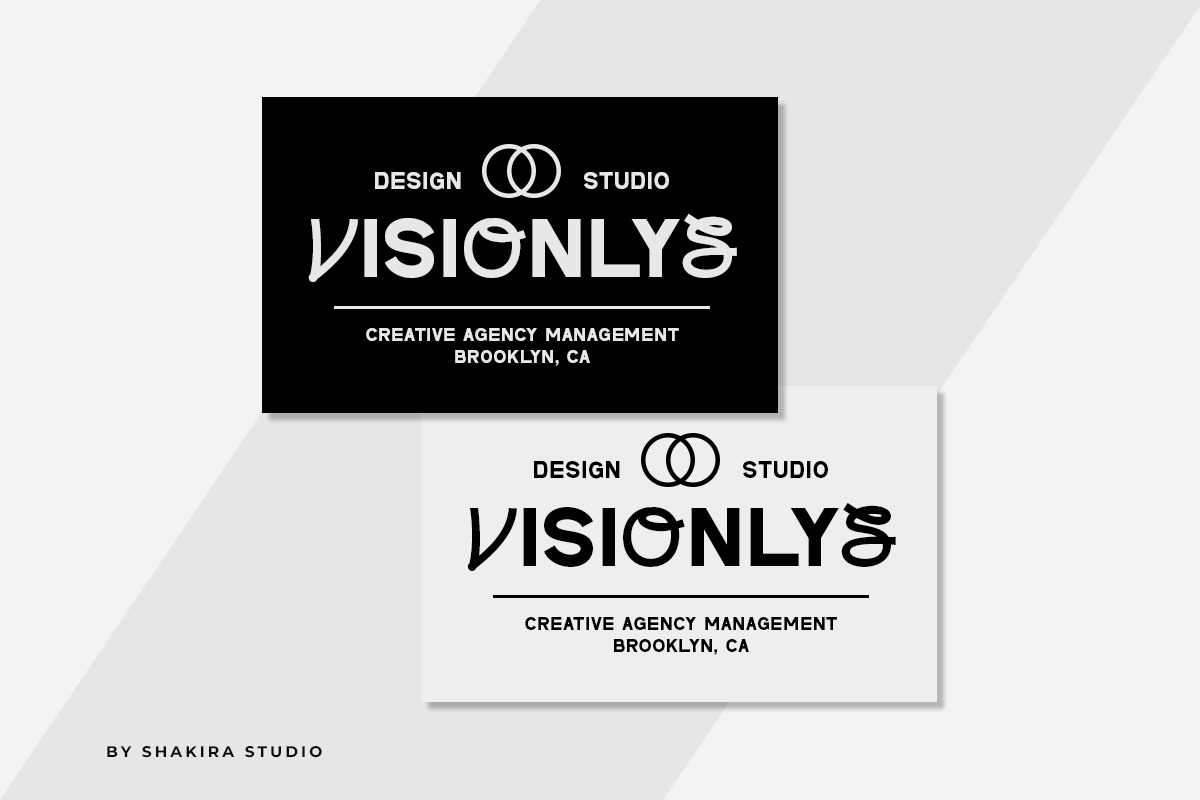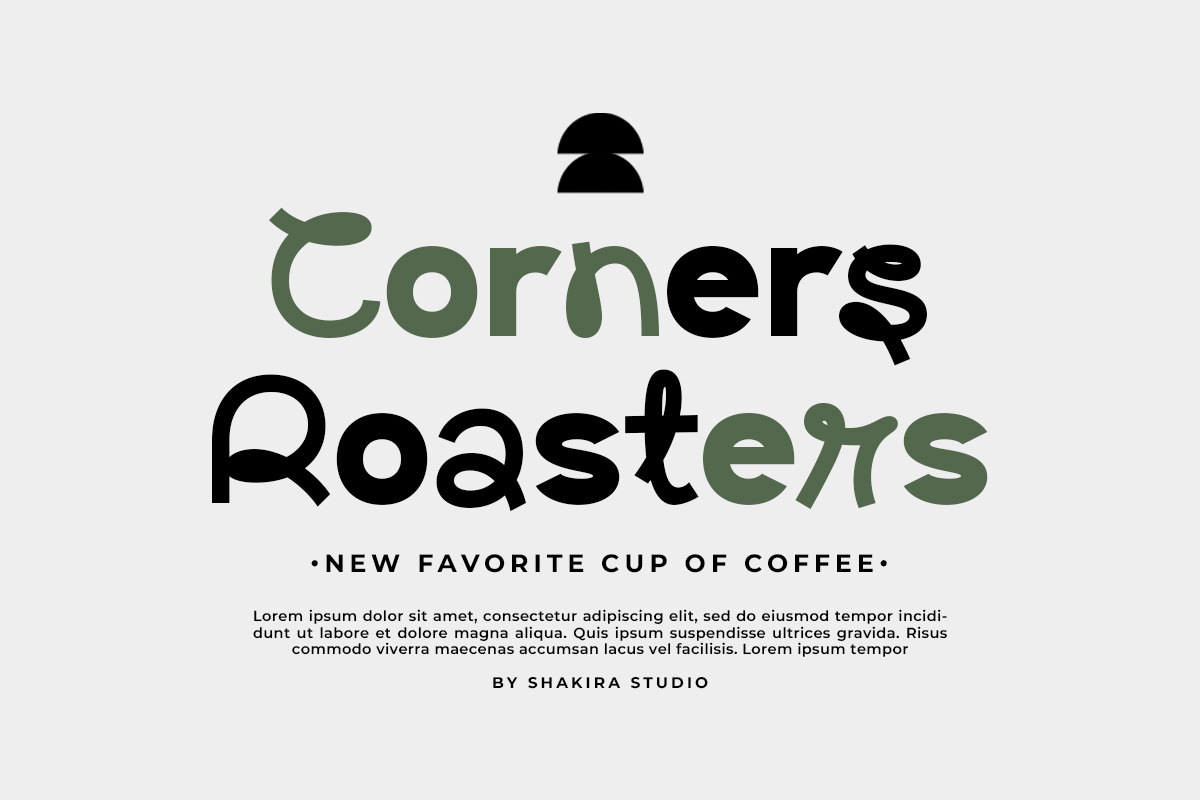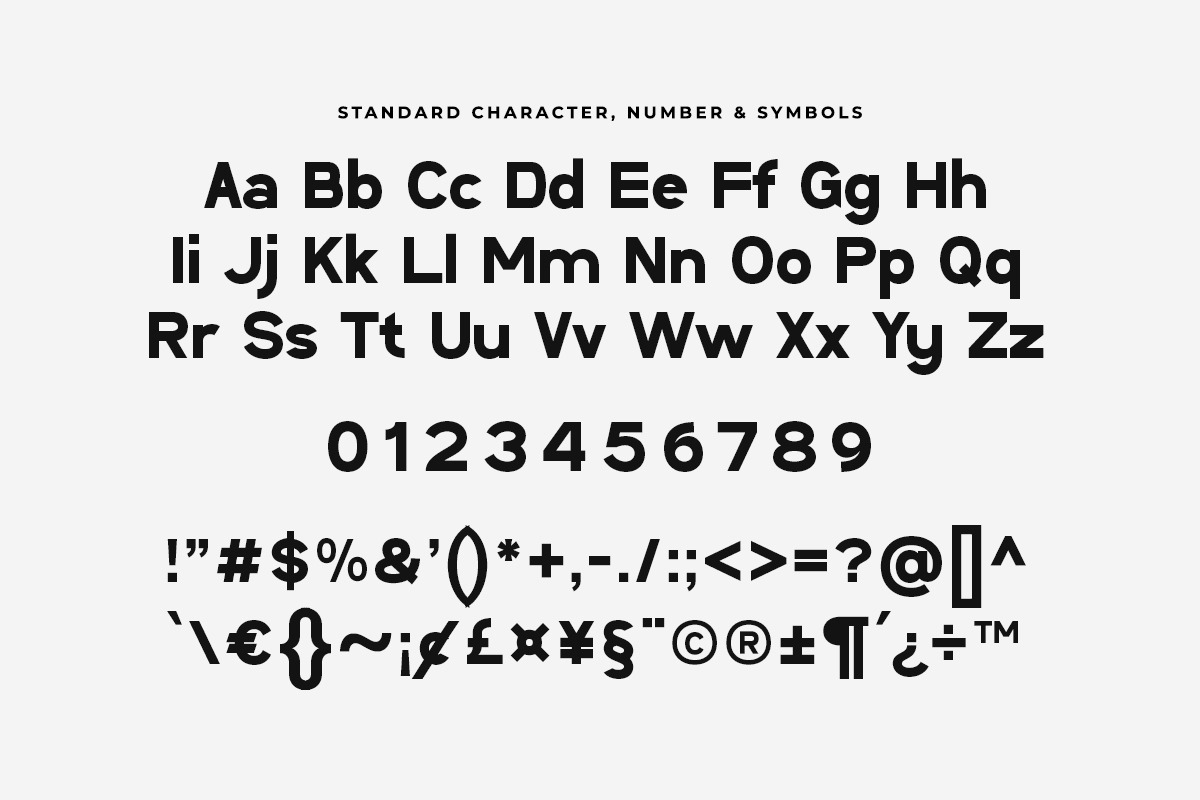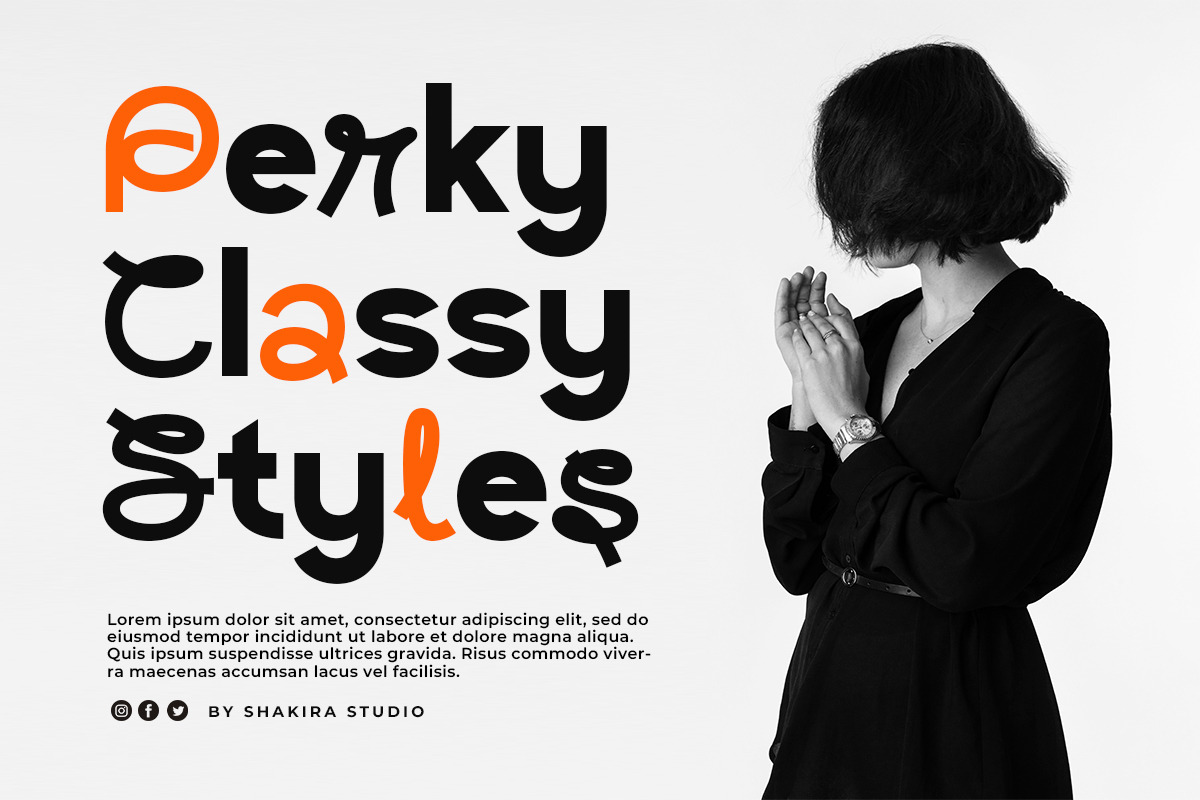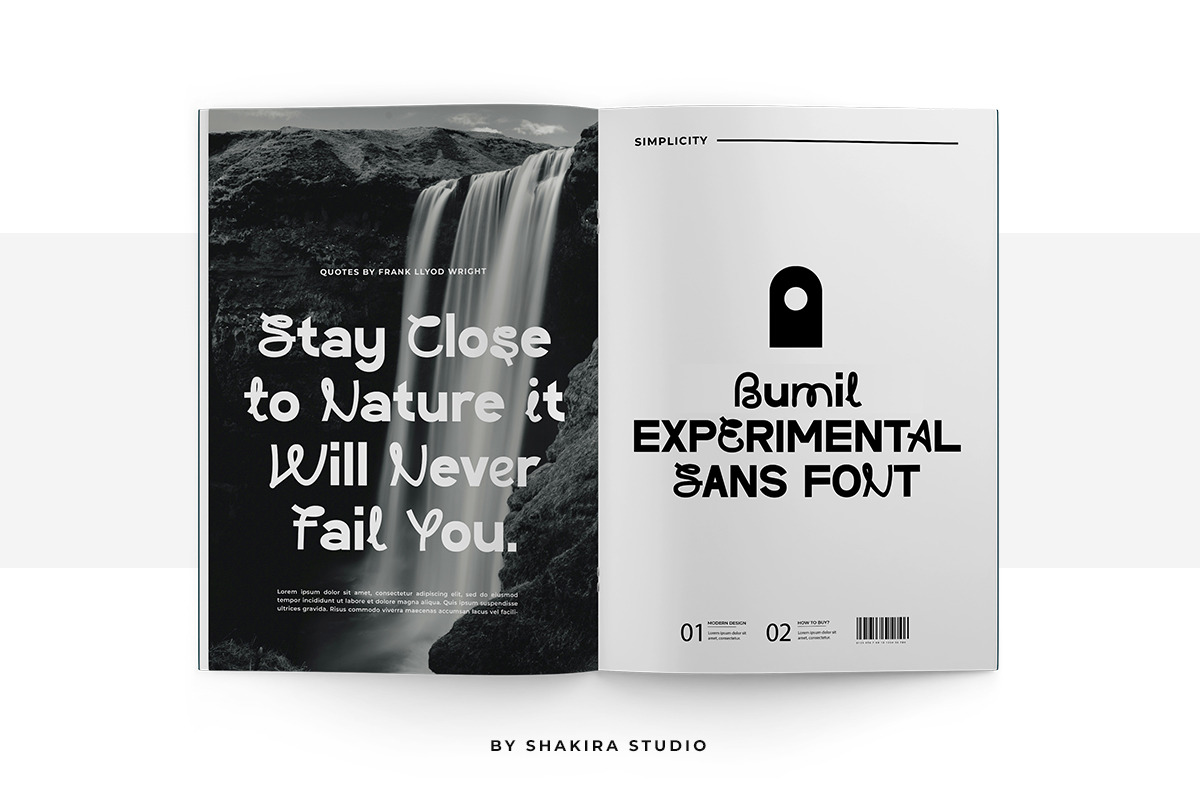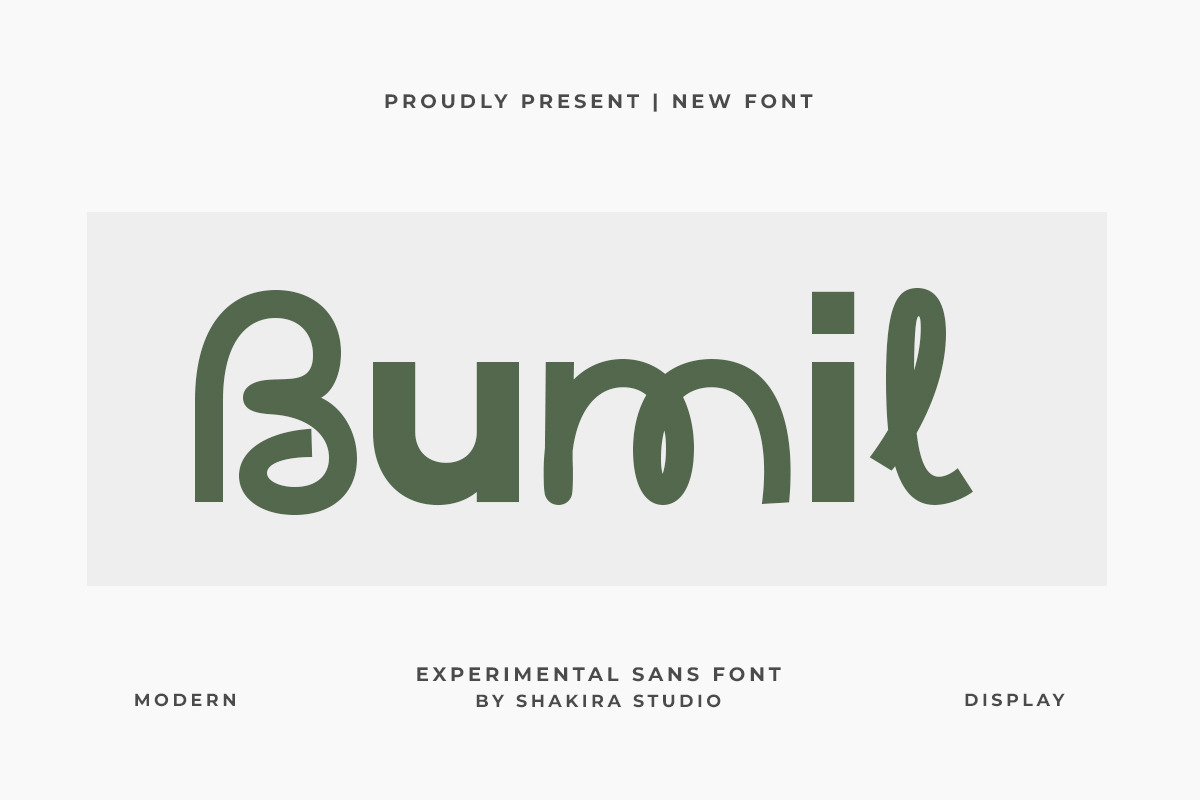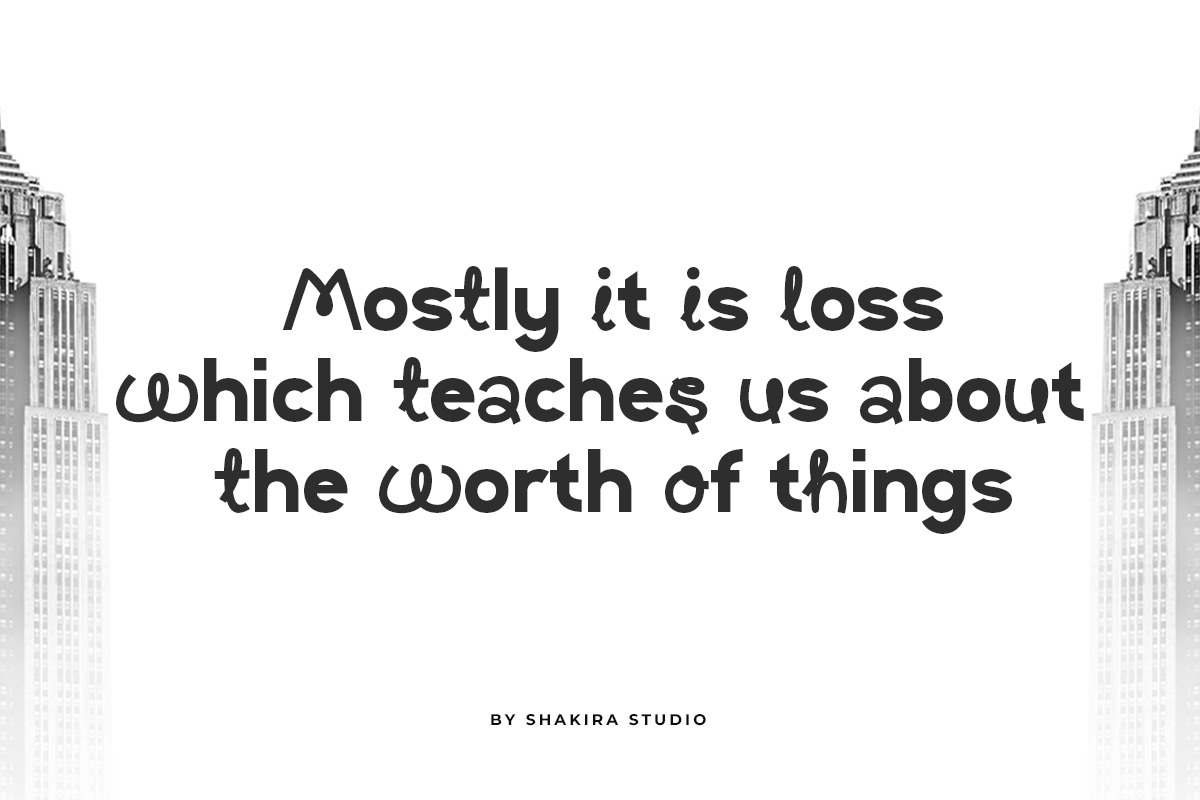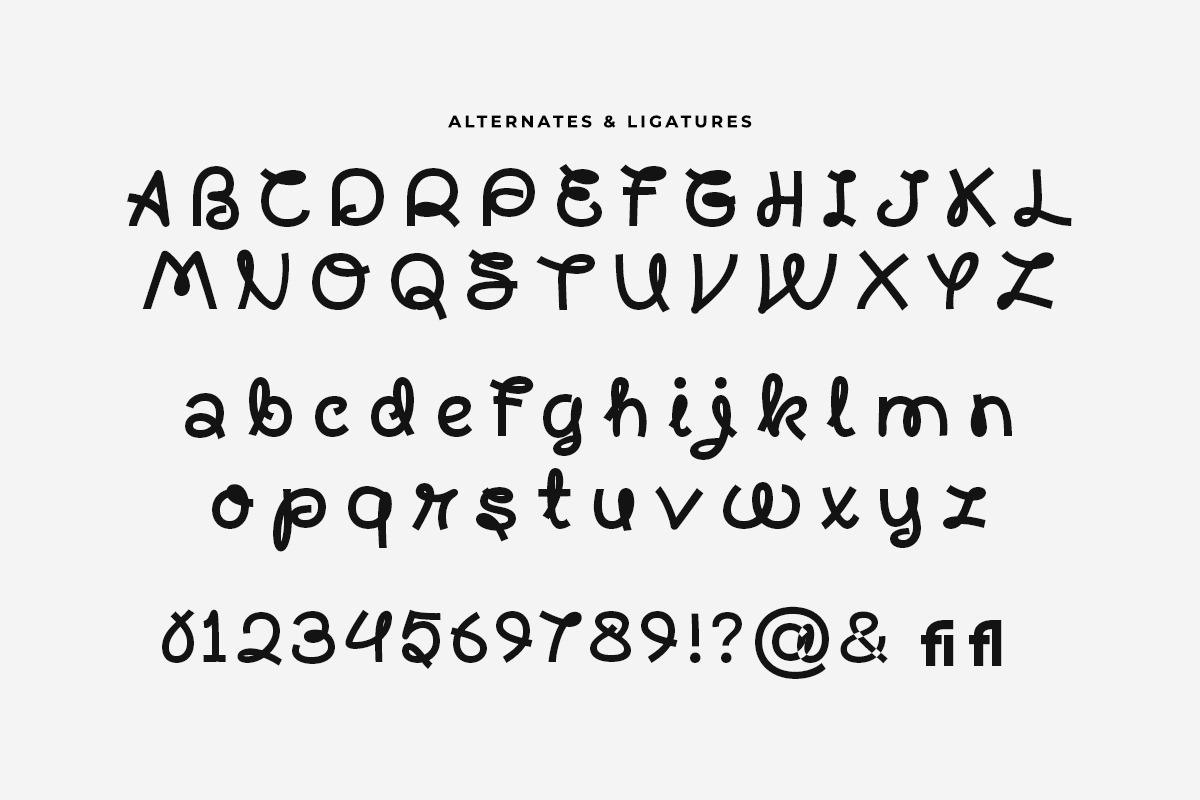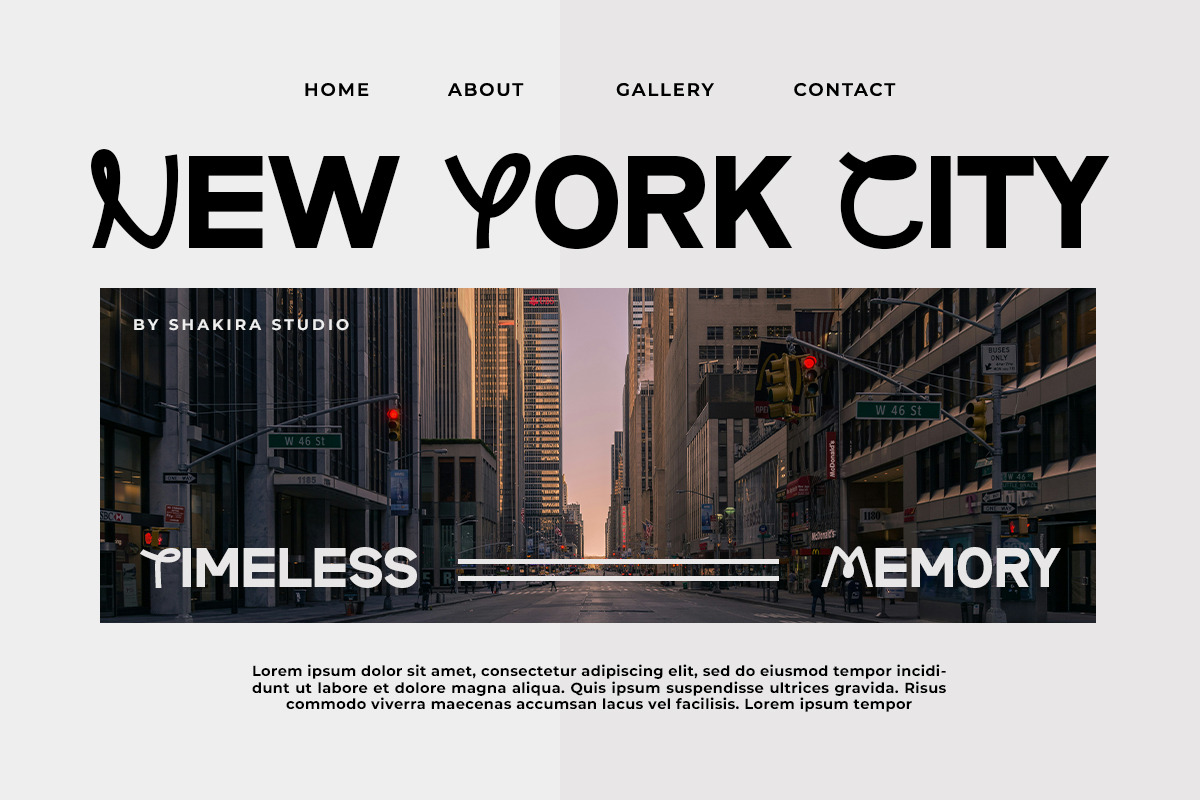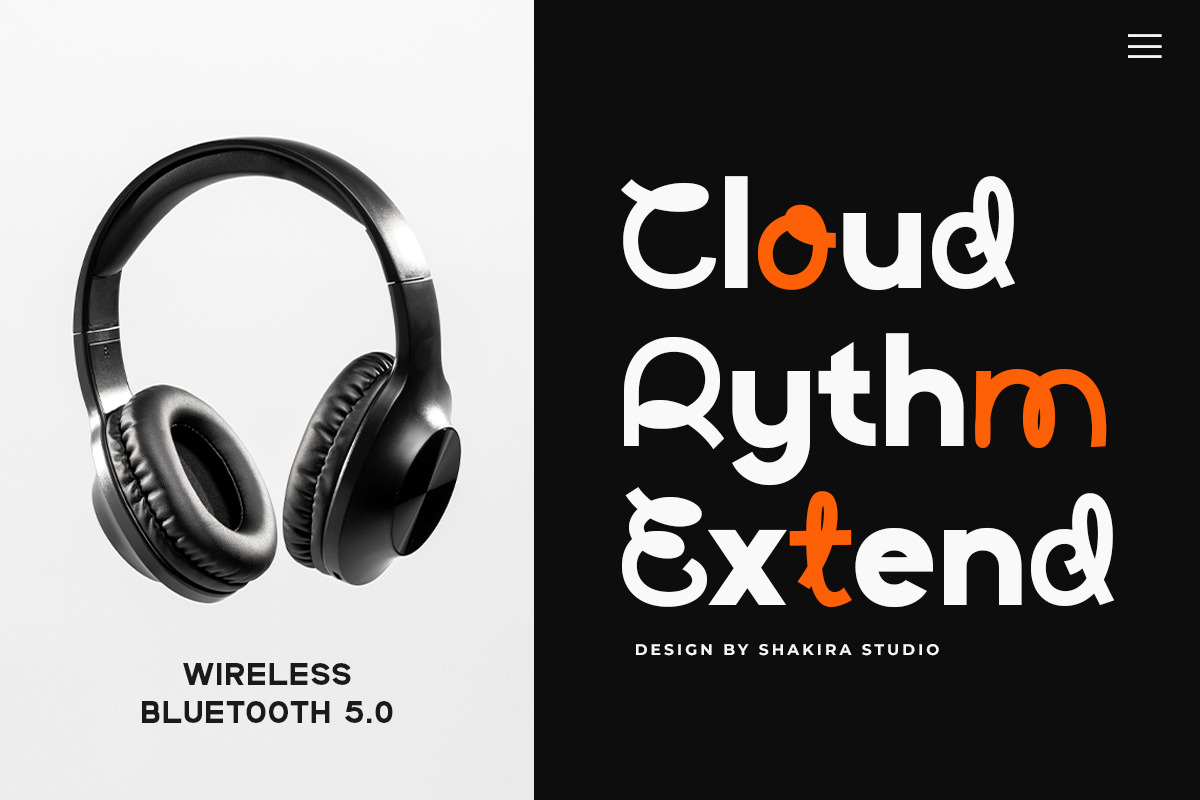
Bumil - Unique Sans Font
Introducing Bumil - The Experimental Sans Serif Font with Unique Character!
Bumil is not just another font; it's a bold experiment in modern typography. Perfectly capturing the essence of #ExperimentalFonts and #TypographyTrends, Bumil is designed to push the boundaries of conventional design.
With its unique characters and stylish alternates, Bumil adds a distinctive flair to any project. Whether you're working on cutting-edge branding, innovative posters, or creative editorial designs, Bumil's experimental nature will make your work stand out.
- Opentype features ( ligature, alternate )